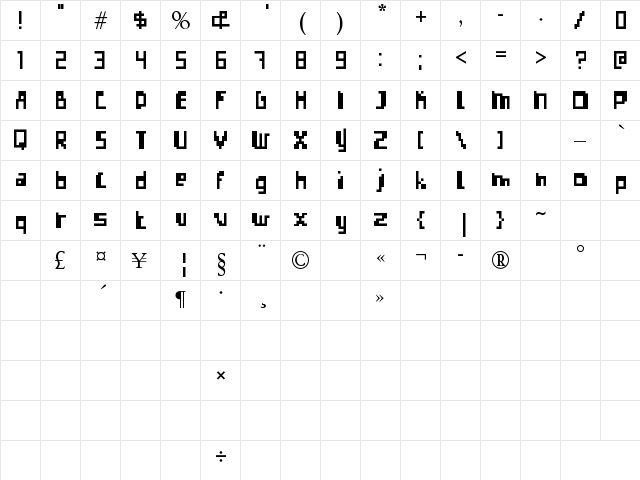
Errorize Regular Font Preview
Errorize Regular
Design Context for Errorize Typeface
Errorize is a composed and adaptable typeface that performs quietly and consistently across a wide range of design contexts.